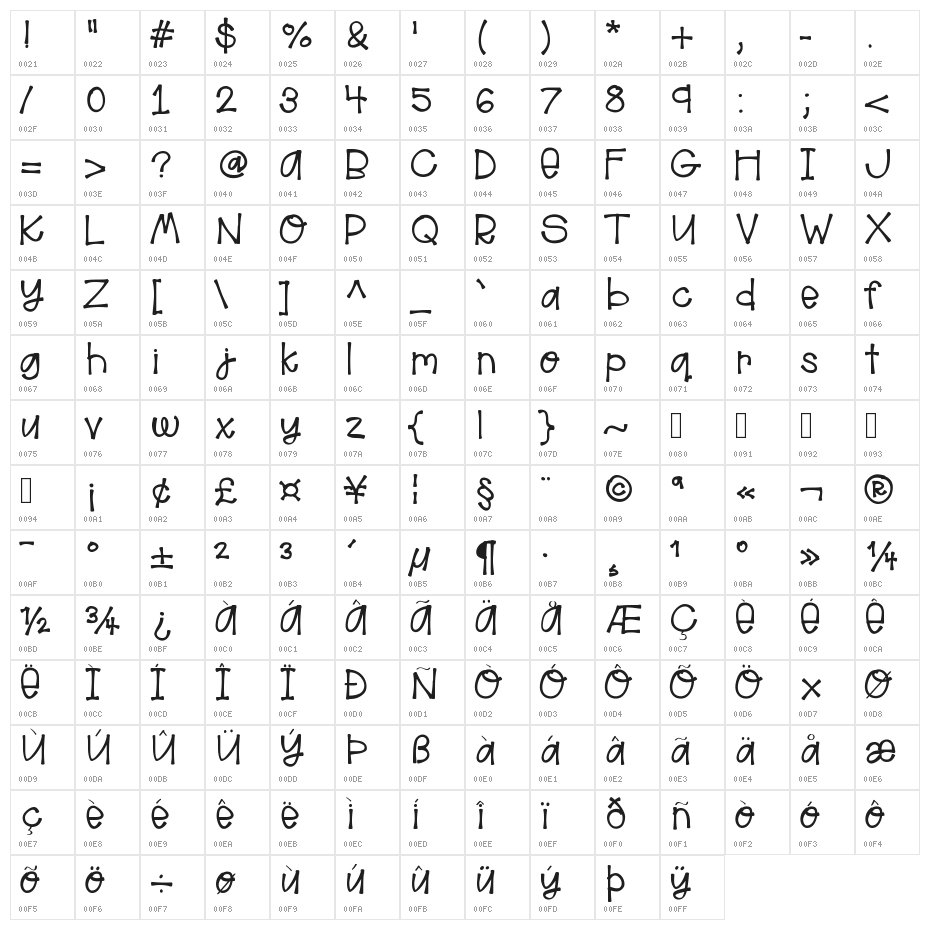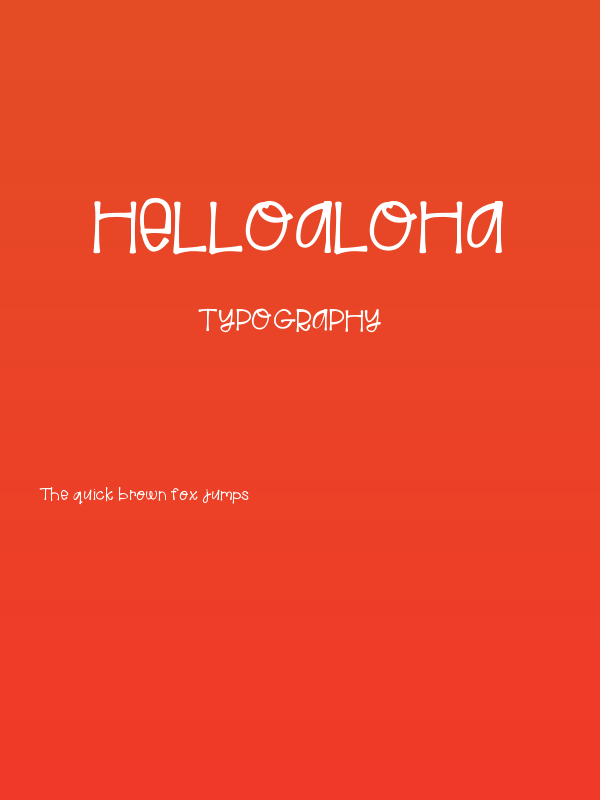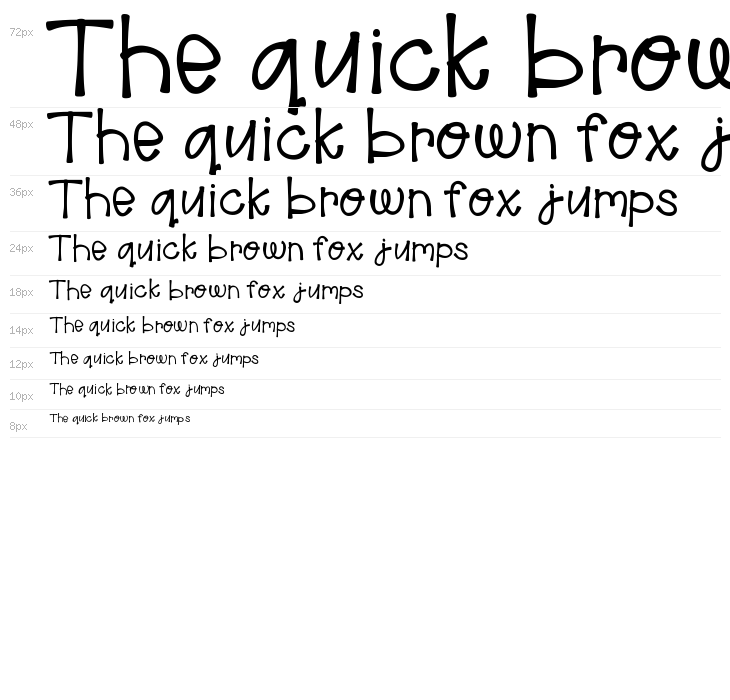
HelloAloha Font
HelloAloha Description
This playful and whimsical font features a handwritten style with a casual and friendly appearance. The characters are slightly irregular, adding to the charm and informal feel of the font. The strokes are bold and rounded, giving it a warm and approachable look. The uppercase and lowercase letters maintain a consistent style, with a slight slant that enhances the handwritten effect. The numbers and special characters are designed to match the overall aesthetic, ensuring a cohesive look across all text elements. This font is ideal for projects that require a personal touch or a fun, lighthearted vibe.
| Proposed Projects | Greeting cards, children's books, playful branding, social media graphics, and informal invitations. |